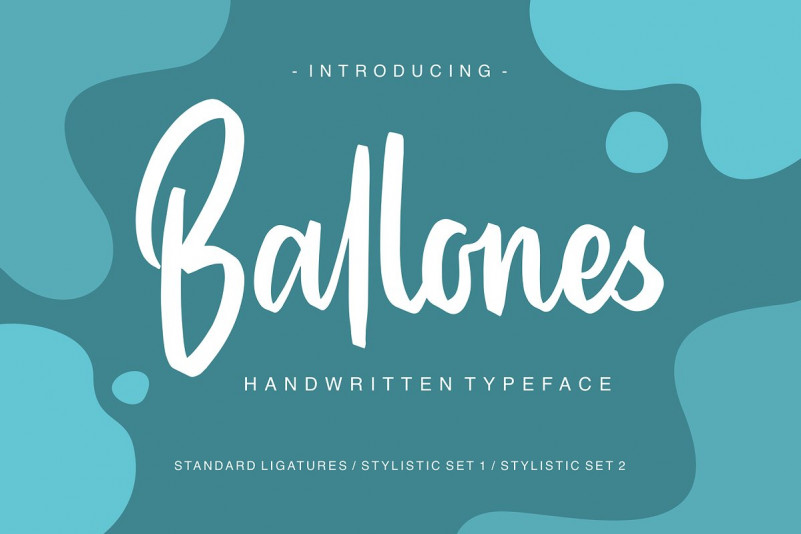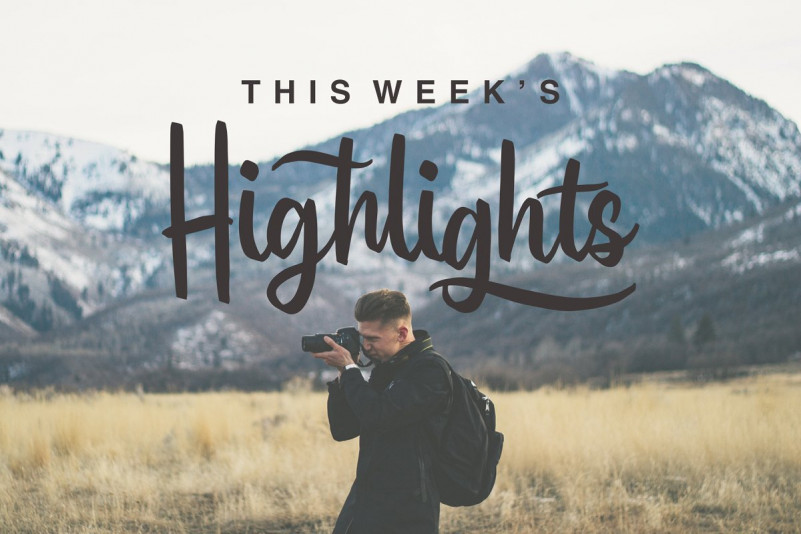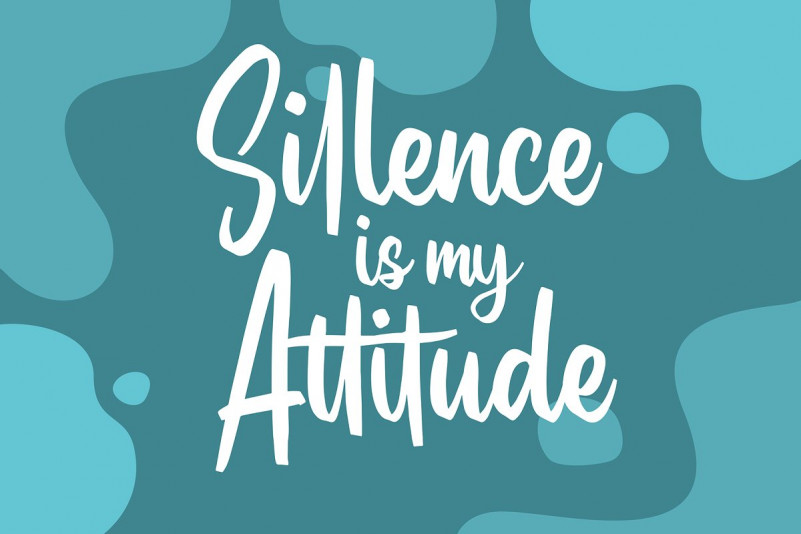
Ballones Font
Hello everyone, we present a new font Ballones Script Font is a beautiful writing theme with a charming curve and a very shaky bottom line It has a perfectly paired marker font, and a bunch of very practical Swash bonuses Ideal for logos, handwritten quotes, product packaging, headers, posters, merchandise, social media & greeting cards.
To keep maximum real hand lettered effect, there were created 34 ligatures (you can see them among presentation pictures). When creating the font, we should take into consideration that each letter should be able to be connected with other letters.